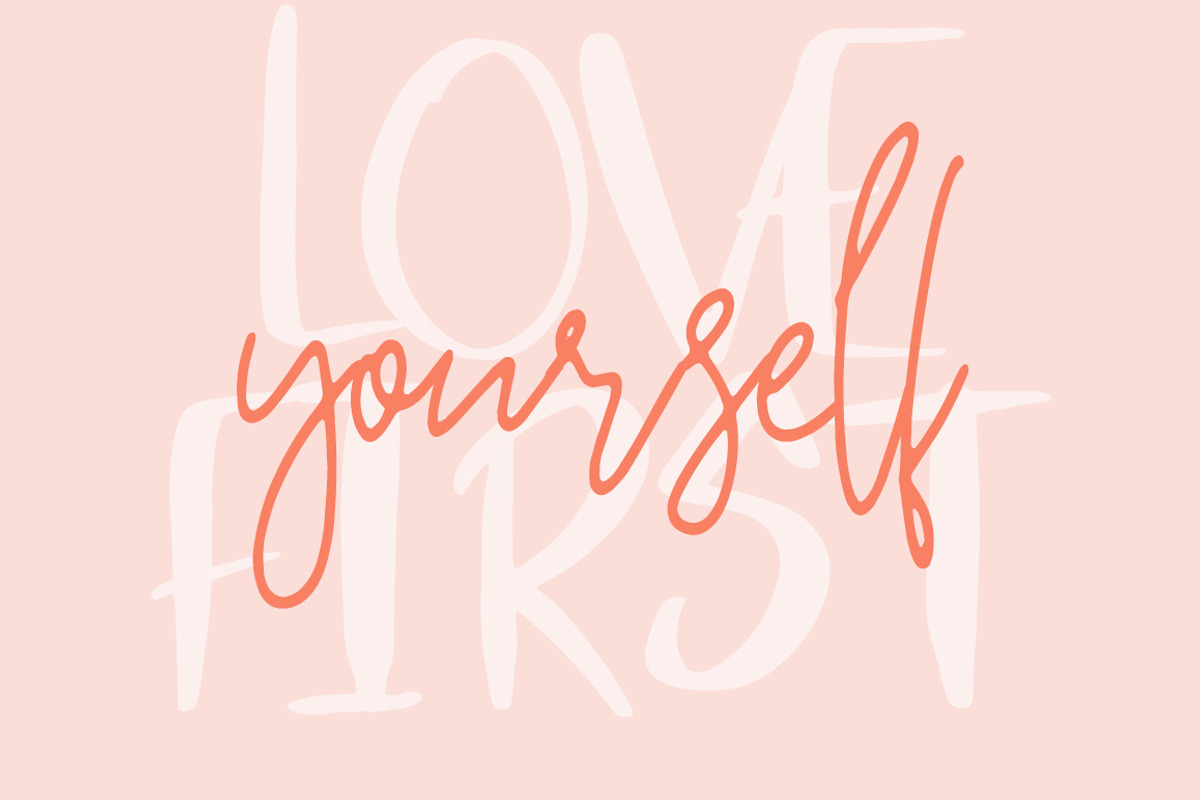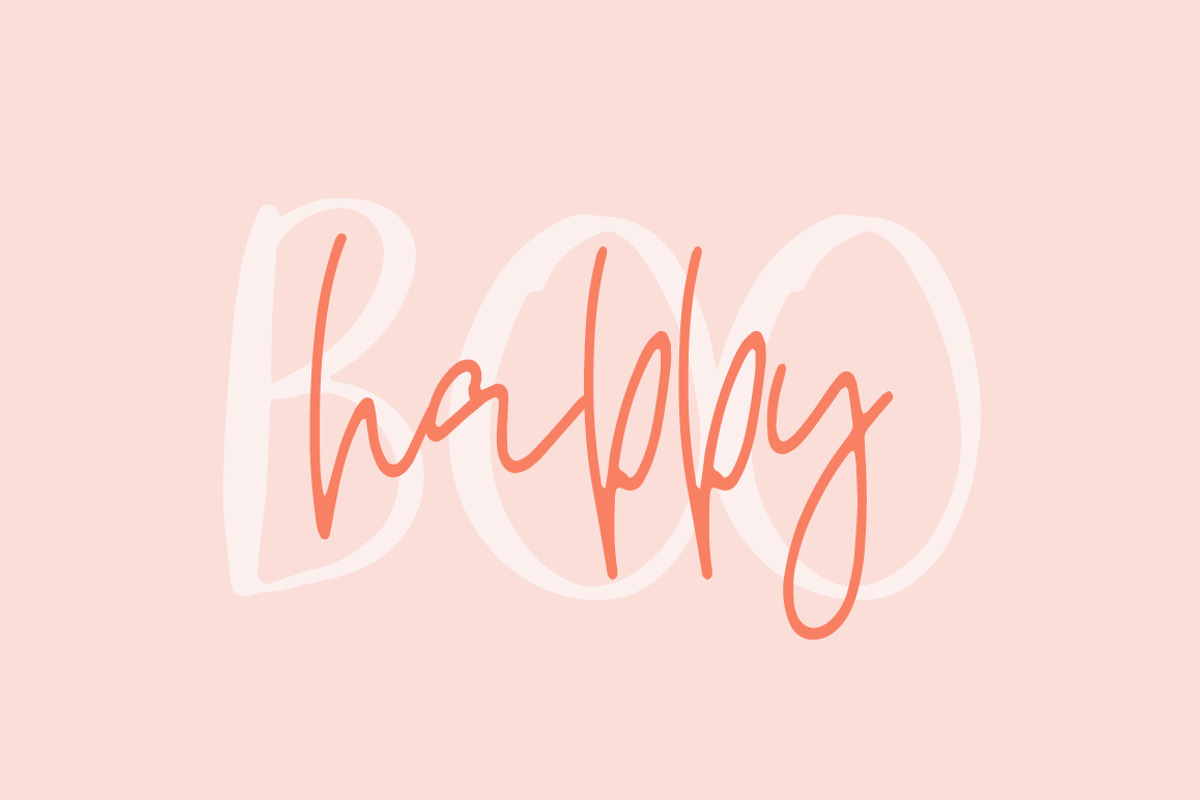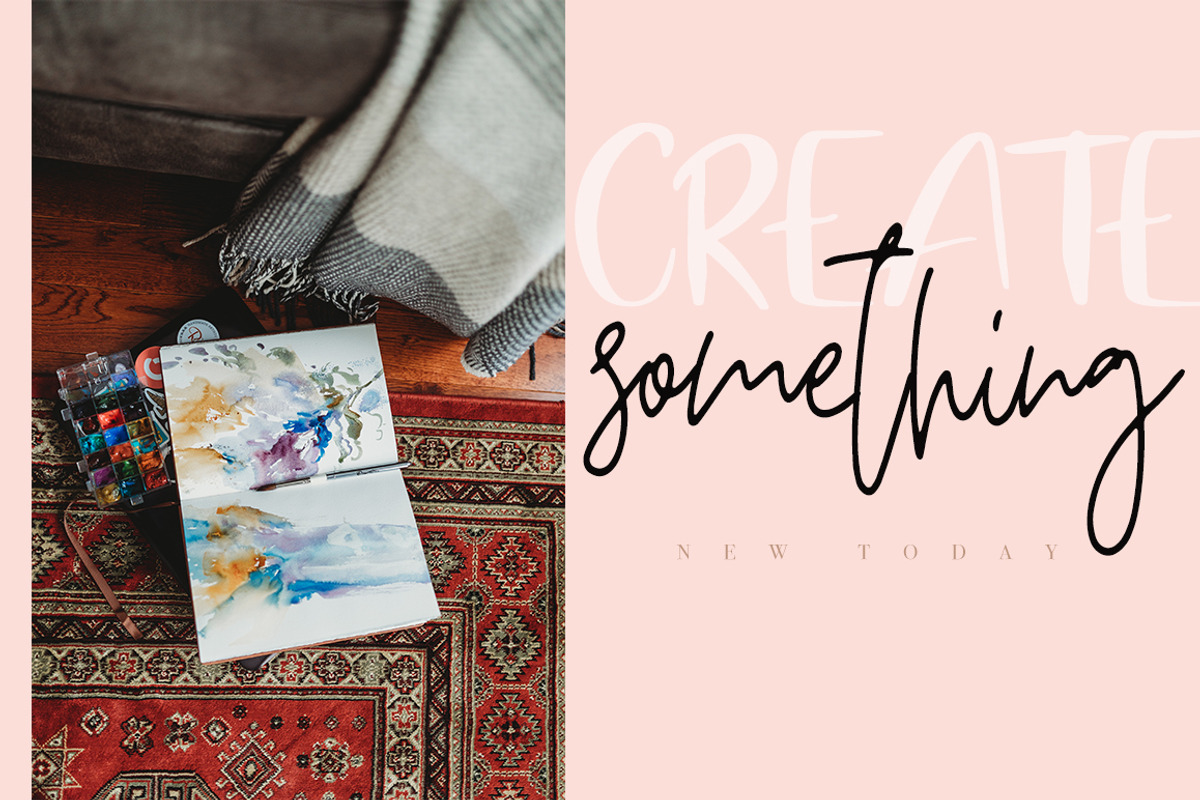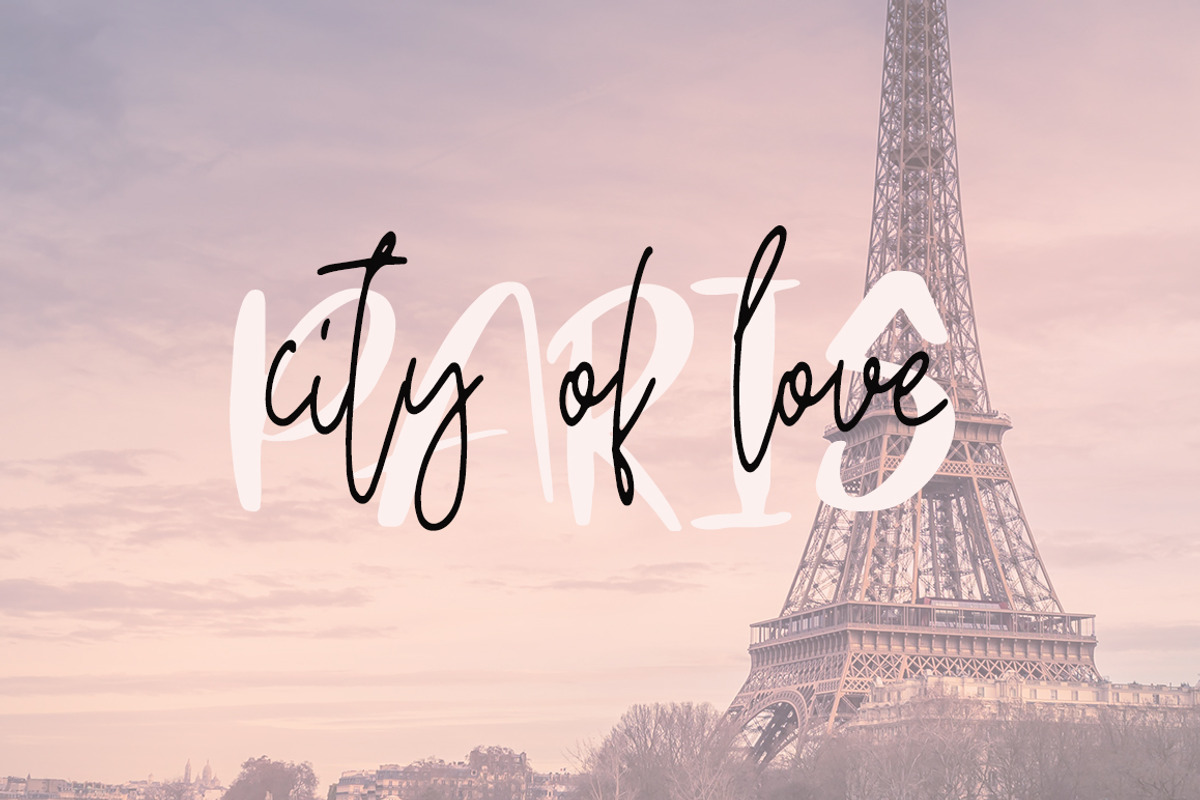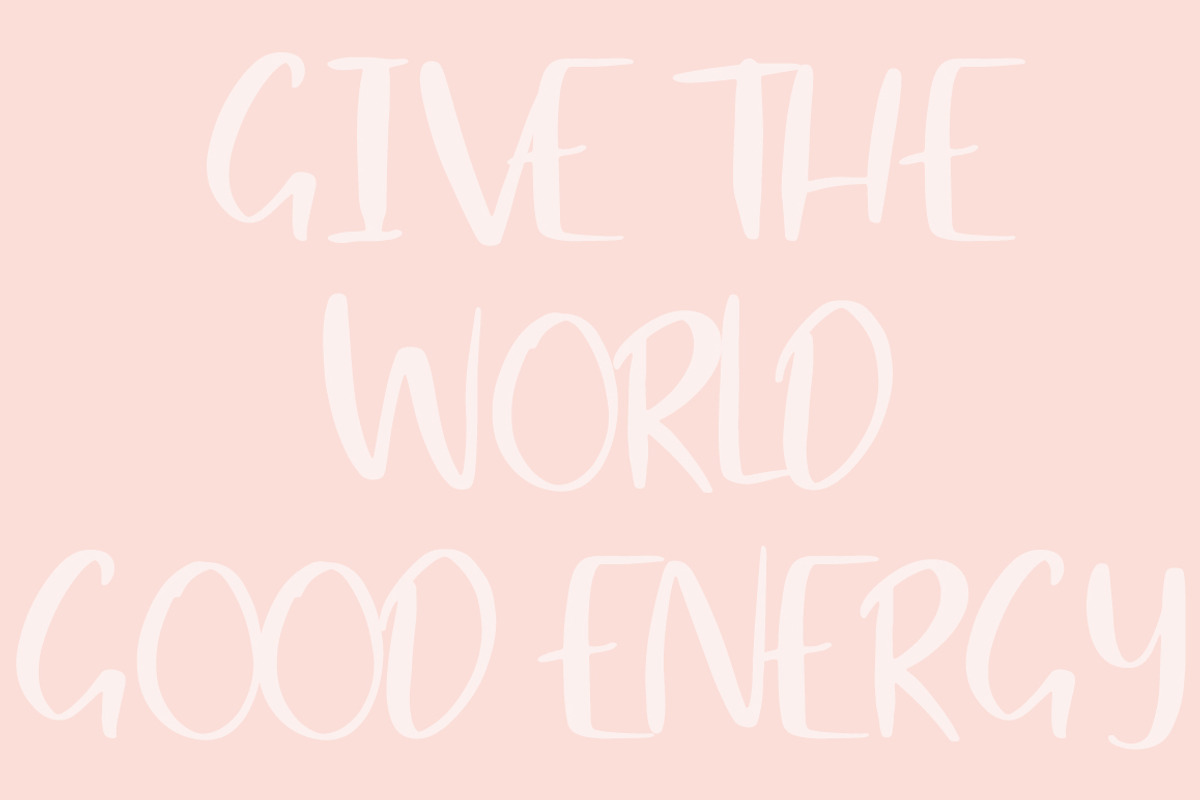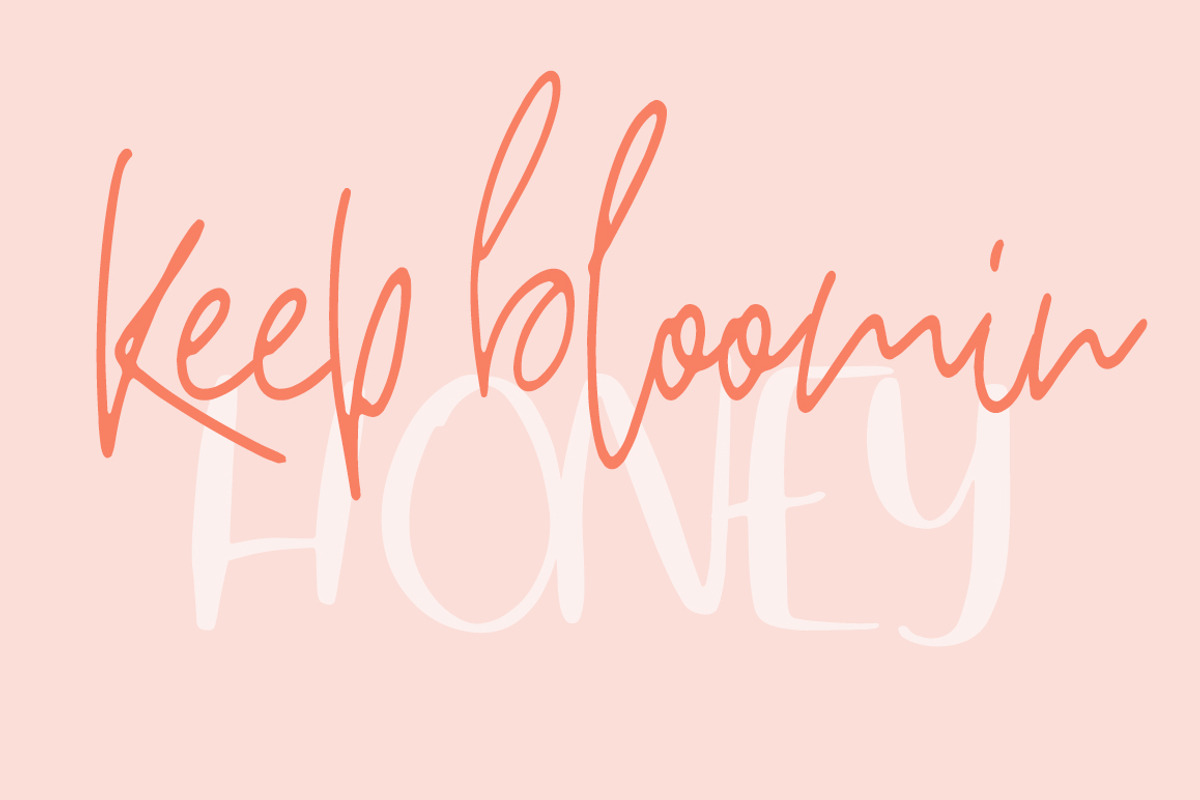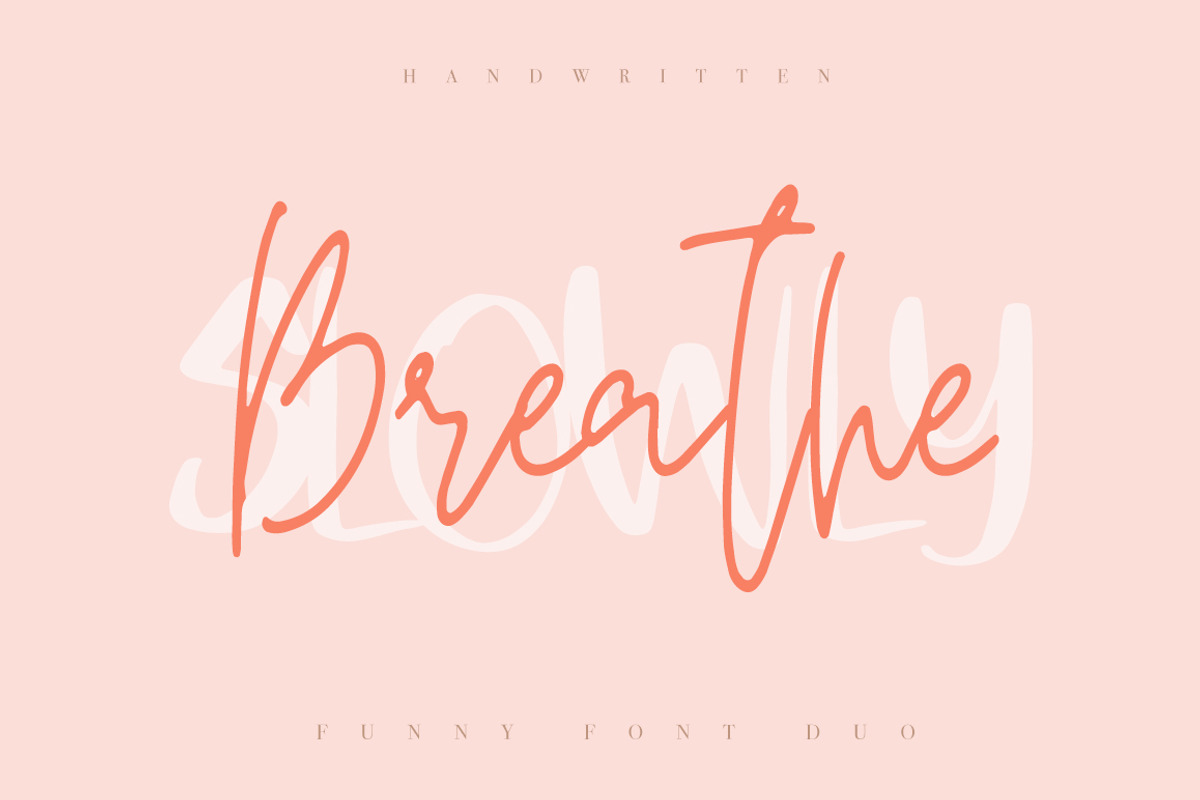
Hey Friends This is my new Funny Font Duo Breathe Slowly :)
Font SLOWLY includes only Uppercase symbols
Every single letters have been carefully crafted to make your text looks beautiful. With modern script style this font will perfect for many different project ex: logo, photography, watermark, quotes, blog header, poster, wedding, branding, logo, fashion, apparel, letter, invitation, stationery, etc